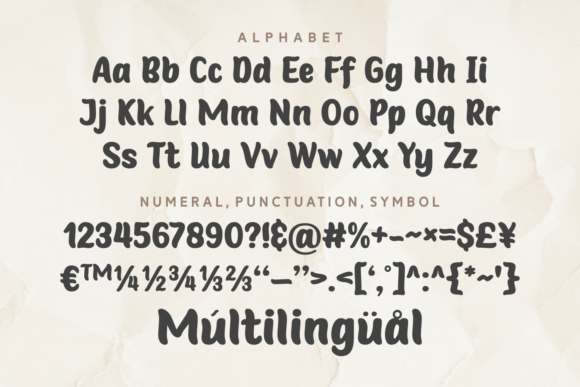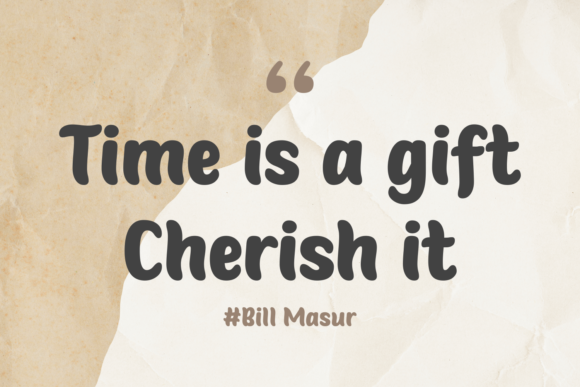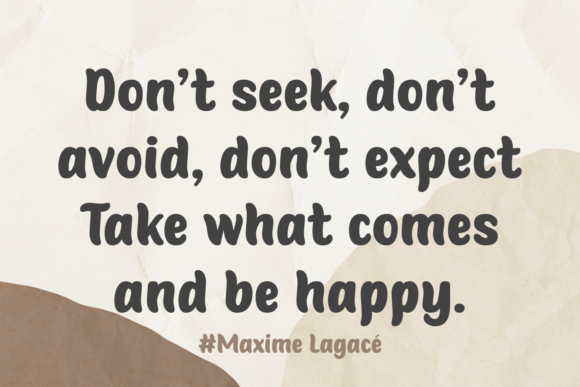
Introduction to Dena Bold Font
Have you ever stared at a blank canvas, waiting for inspiration to strike? That’s exactly where I was when I stumbled upon the Dena Bold Font. Its playful, hand-painted strokes immediately caught my attention, and I knew I had to learn more. This cool paint brushed handwritten font is a game-changer for designers, offering a unique touch to any creative project.
Whether you’re working on a cartoon, designing a children’s game, or crafting a quote that needs to stand out, the Dena Bold Font is an excellent choice. Its versatility and high-quality design make it a valuable resource for designers, and the best part? It’s available for free download, giving you the freedom to experiment without breaking the bank.
Key Features of Dena Bold Font
- High-quality font designed for creative projects, ideal for graphic designers and artists.
- Includes a transparent background, making it easy to use as a design resource in various creative projects.
- Features a clean and modern design, perfect for branding, logos, and typography-based designs.
- Comes in a single weight (Dena Bold) for a strong and impactful visual statement.
Honest Review: Dena Bold Font
I recently had the opportunity to work with the Dena Bold Font and I must say, it’s a great addition to any designer’s toolkit. One of the things that stands out about this font is its high quality and versatility. ✨ It’s perfect for a creative project that needs a bold and eye-catching font.
- High quality: The Dena Bold Font is a well-crafted font with a transparent background, making it easy to use on any background.
Overall, I’m impressed with the Dena Bold Font and would definitely recommend it to other designers. It’s a great resource for any creative project and is sure to add a touch of elegance and sophistication to your designs.
The Dena Bold Font is a versatile and high-quality design resource that can elevate your creative project with its unique and stylish typography. With a transparent background, this font is perfect for designers who want to add a touch of sophistication to their designs.
Tips for Getting the Most Out of Dena Bold Font
To get the most out of the Dena Bold Font, use it in combination with other design elements to create a visually appealing design. Experiment with different font sizes, colors, and layouts to find the perfect combination.
The Dena Bold Font is perfect for a variety of creative projects, including:
- Logos and branding